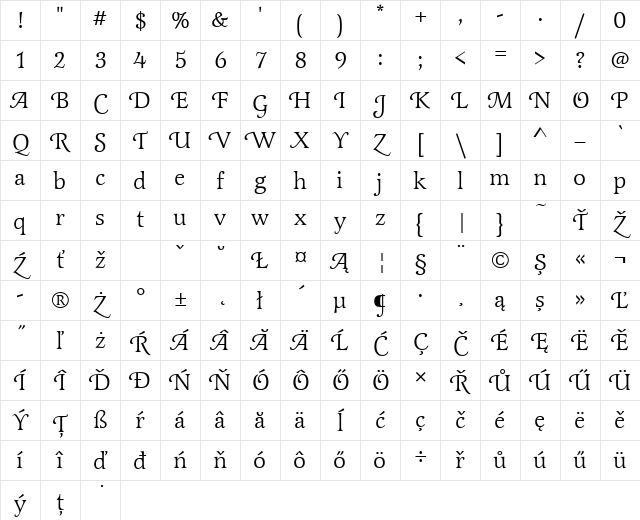
LatienneSwaTEE Regular
LatienneSwaTEE Family
LatienneSwaTEE Regular
LatienneSwaTEE Regular Font Preview
Design Context for LatienneSwaTEE
LatienneSwaTEE is a composed and adaptable typeface that performs quietly and consistently across a wide range of design contexts.